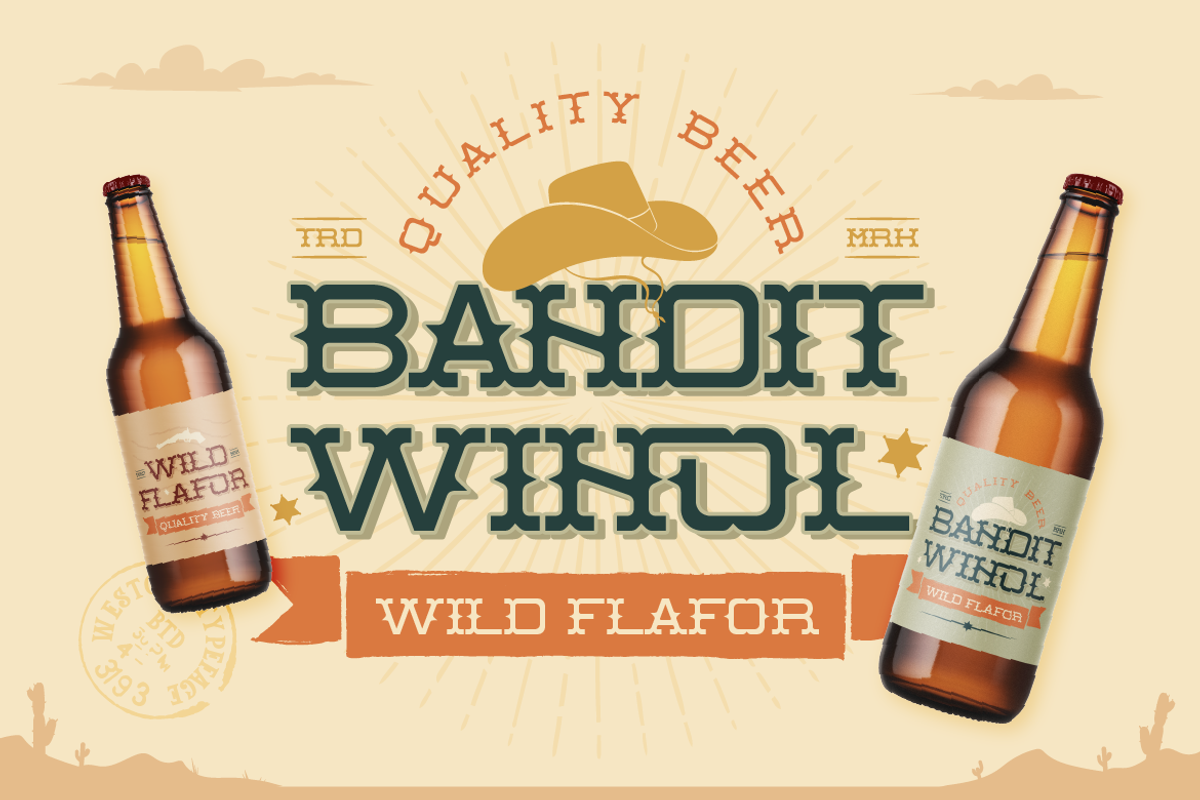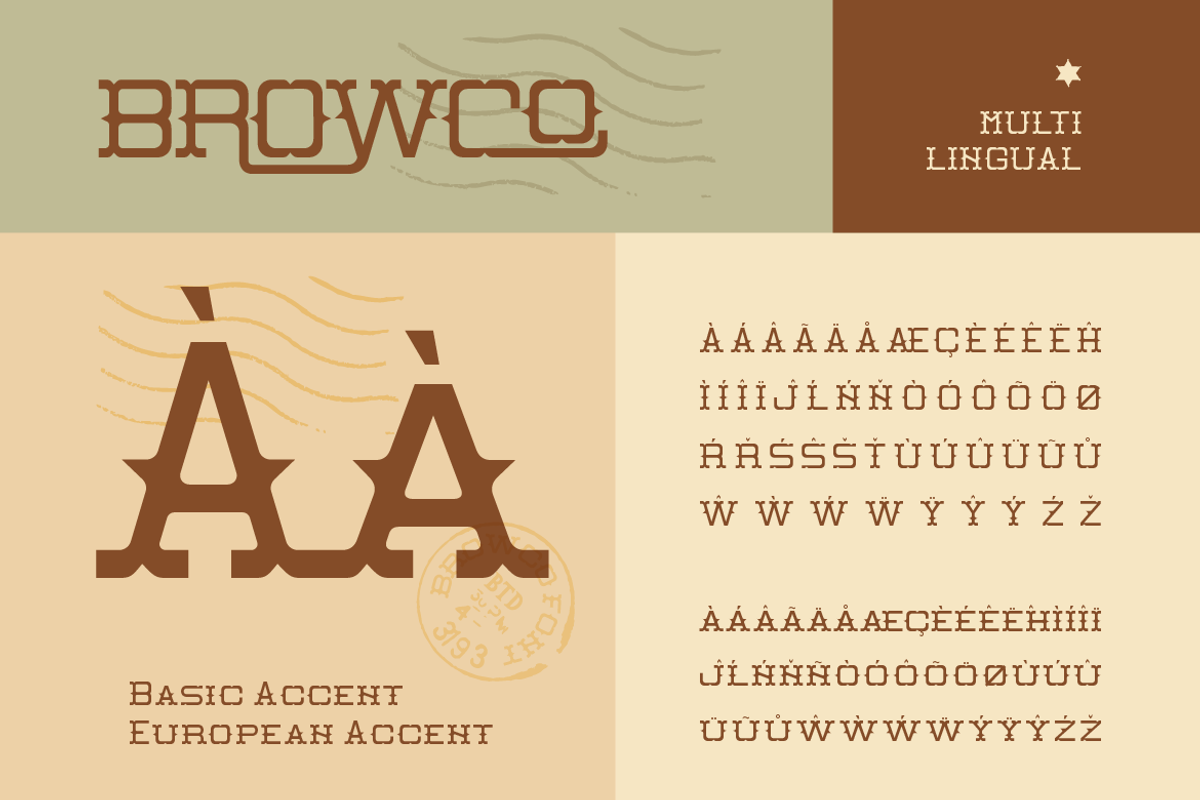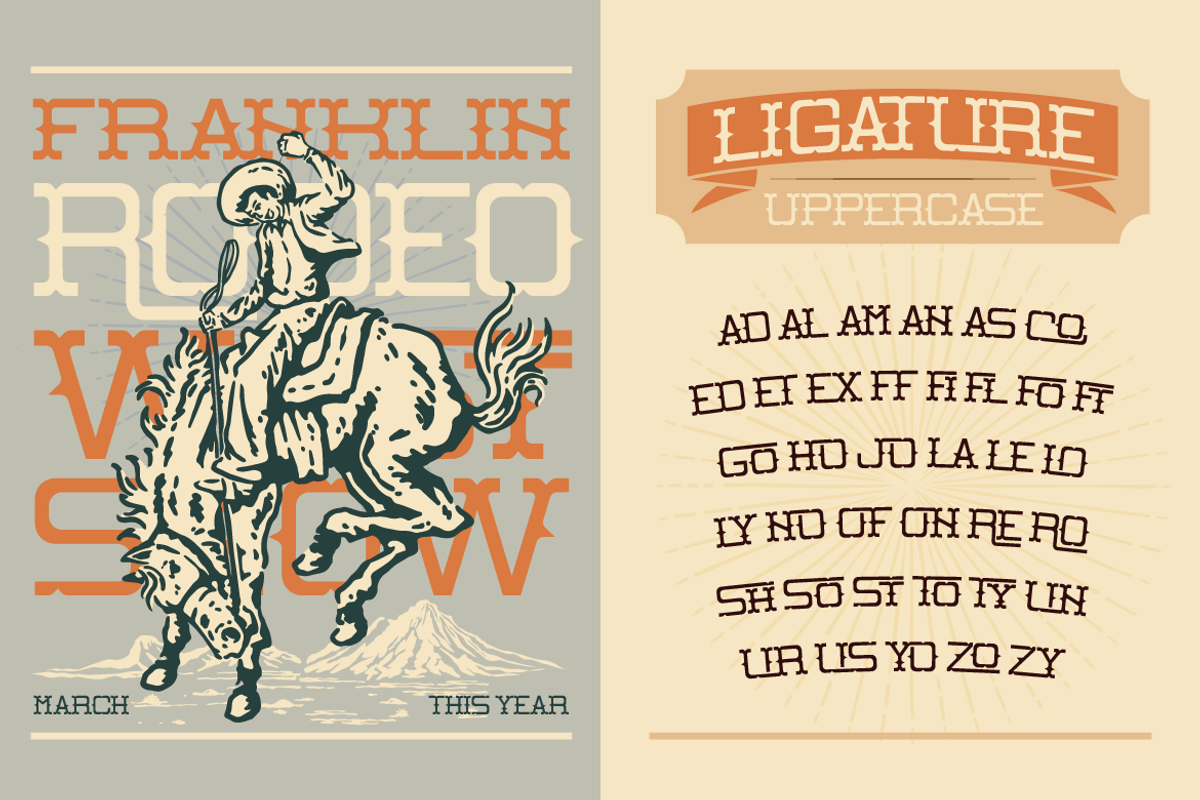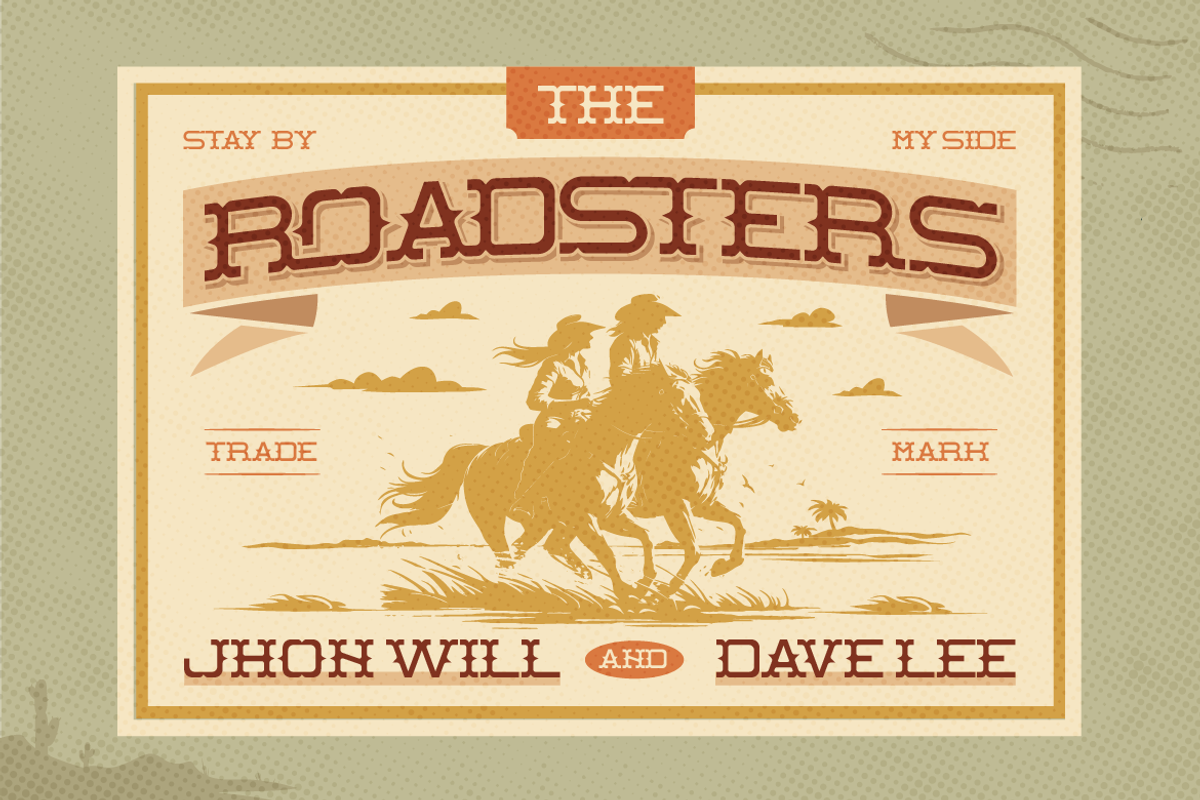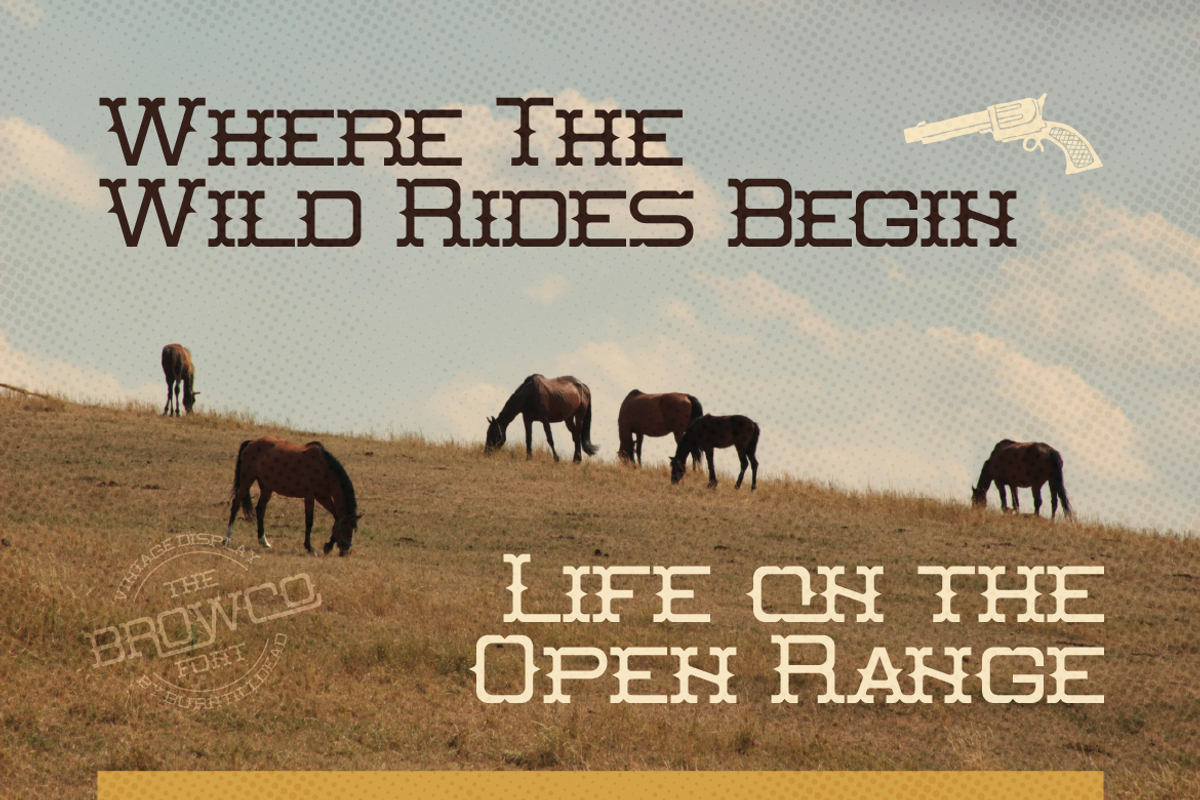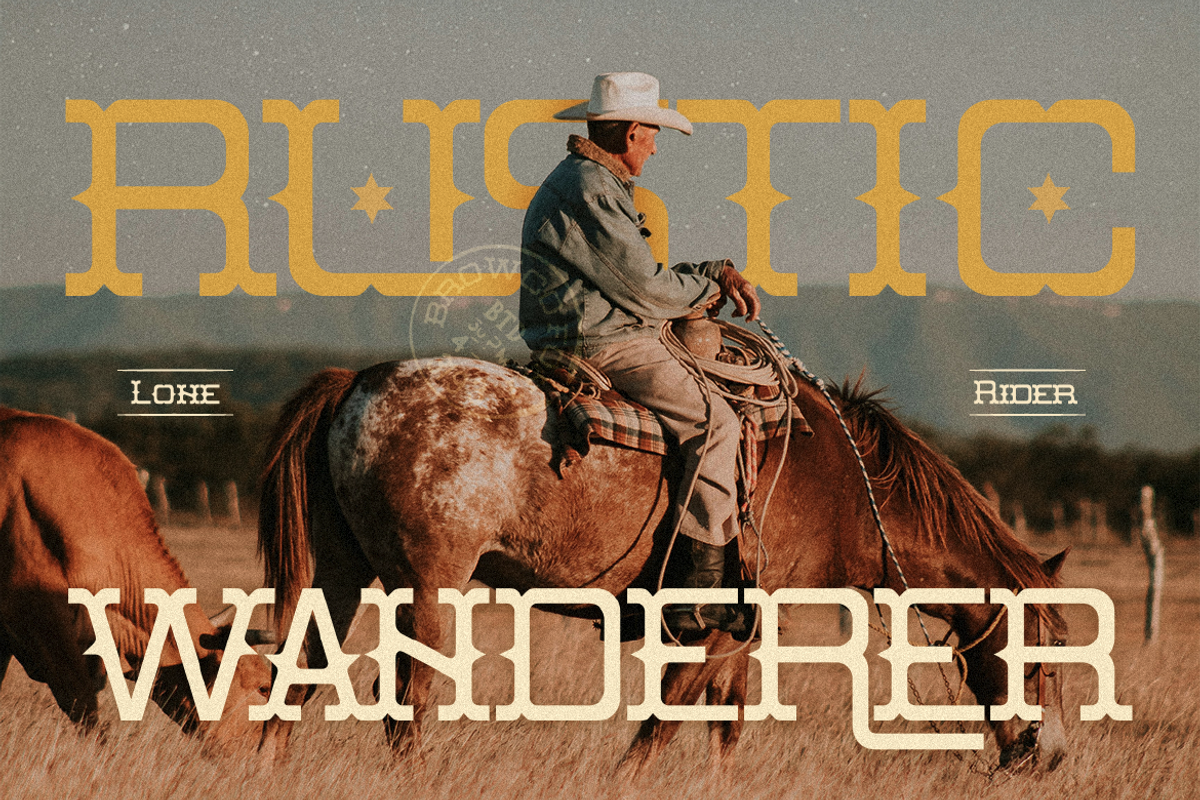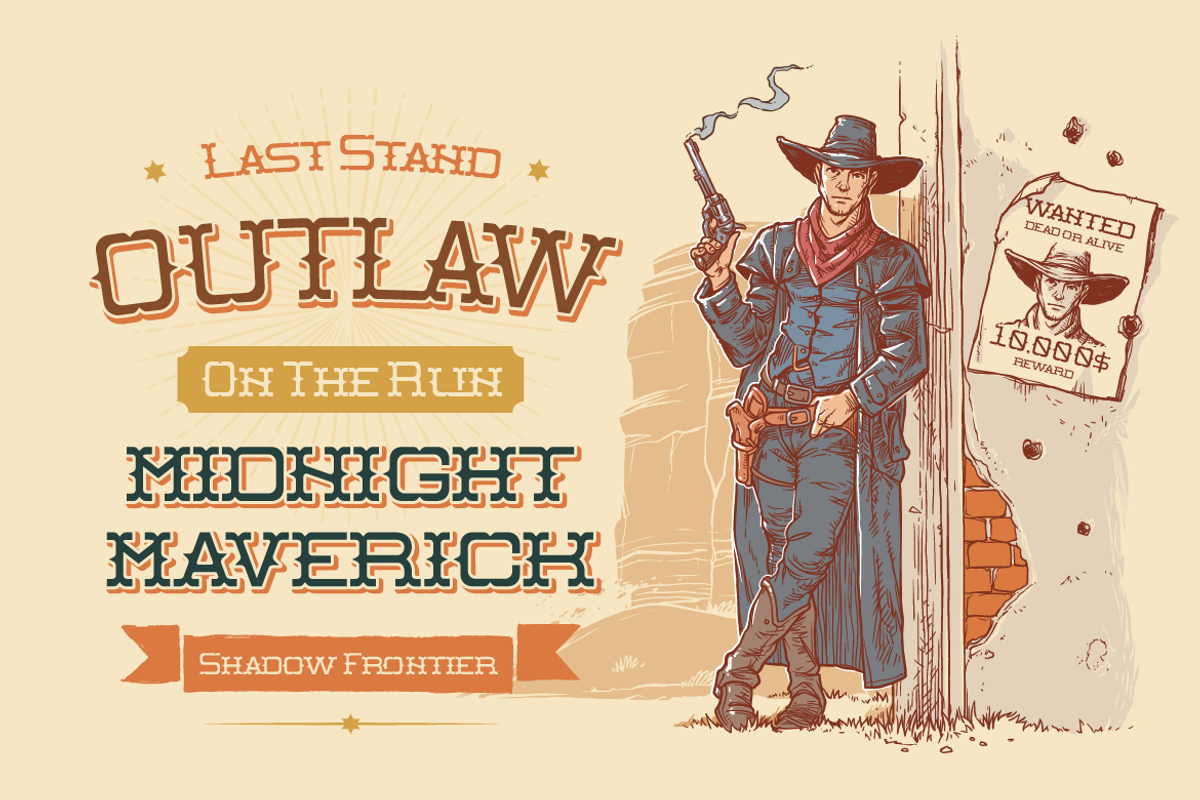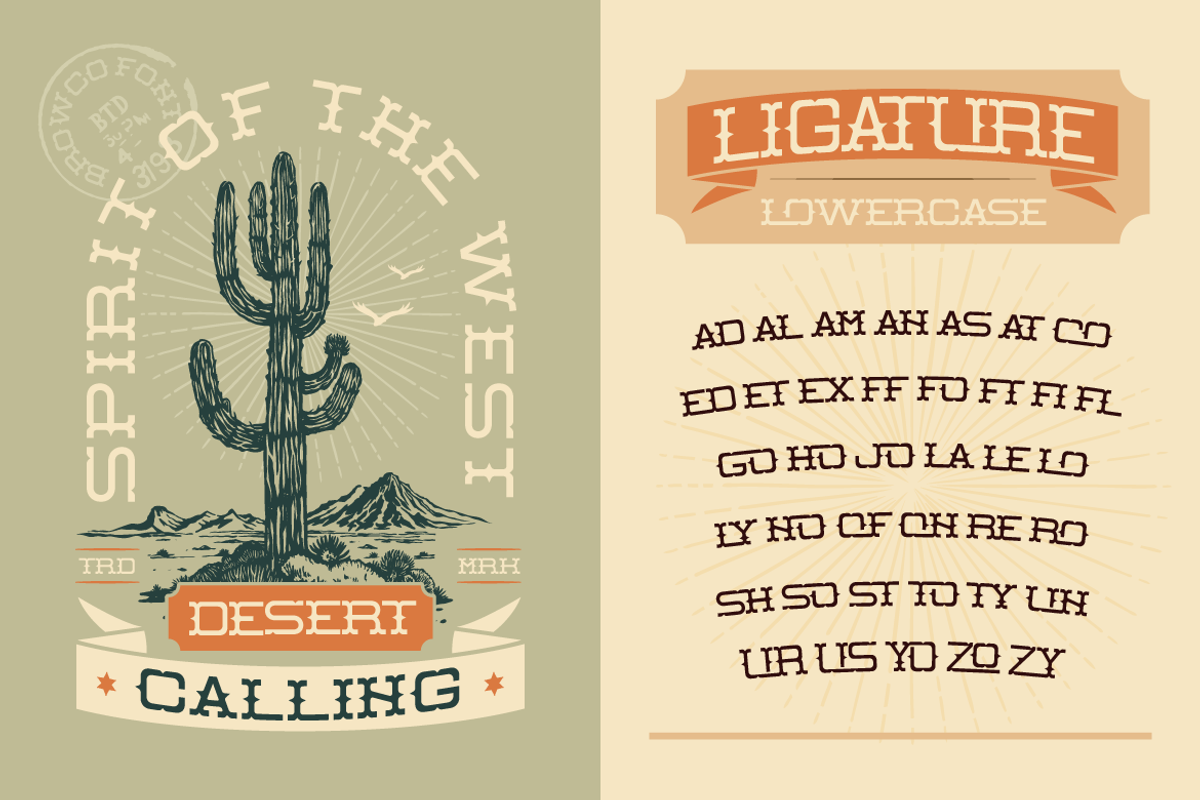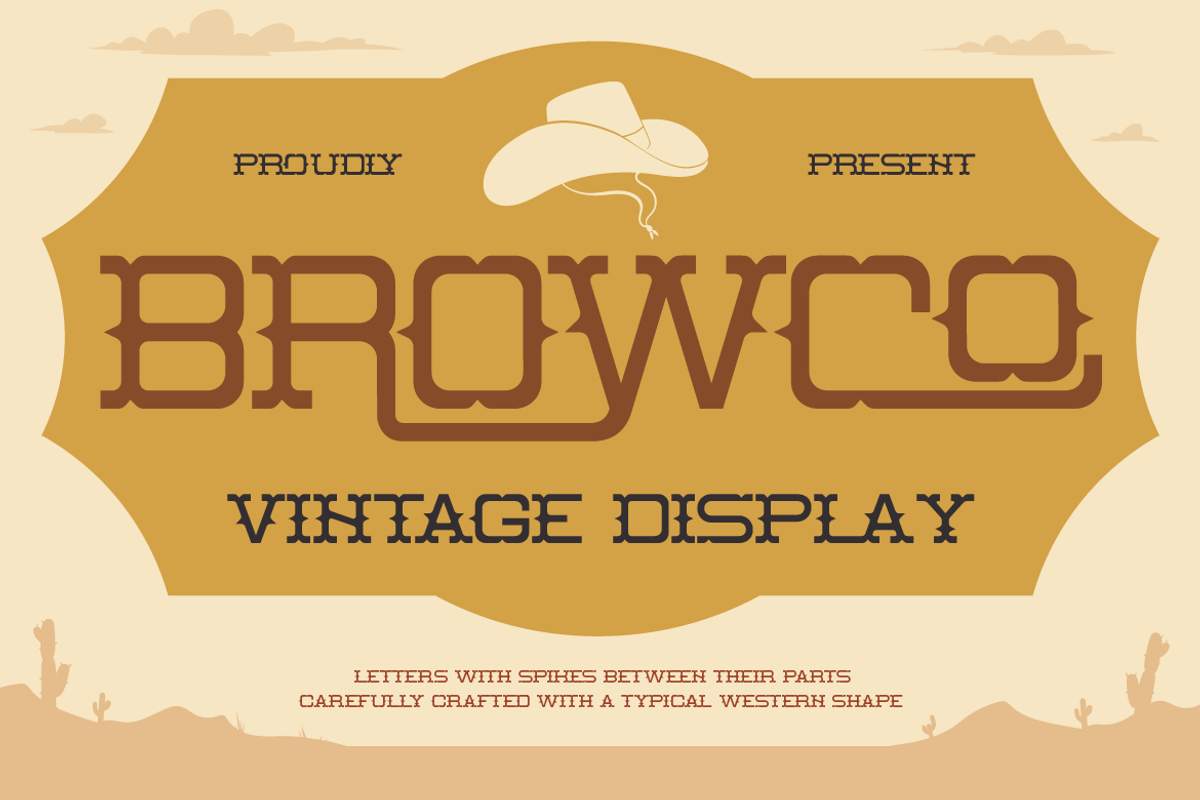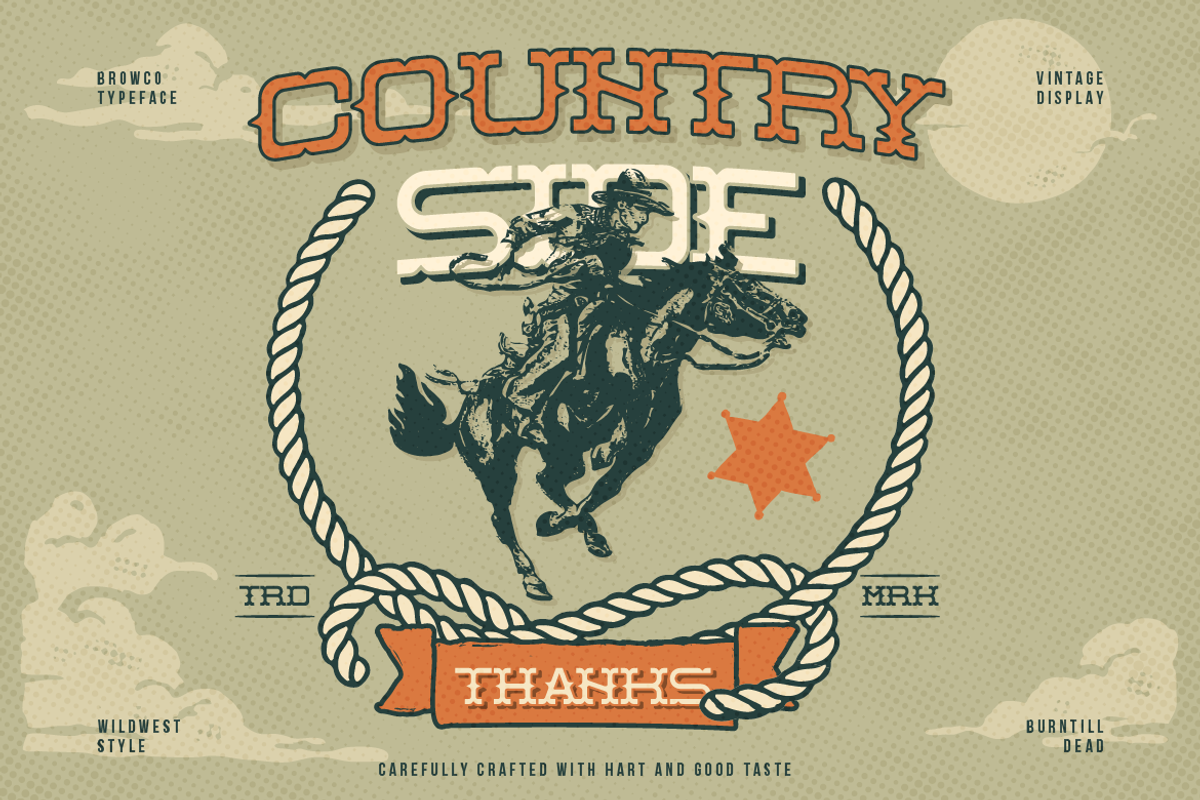
Browco
Proudly present, Browco, this font inspired by the letters with spike in American Wild West style. Browco characterized by the bold letters adorned with sharp spikes between their parts, giving it a distinctive, vintage look. Perfect for creating a nostalgic and adventurous atmosphere in your design, whether for branding, poster, logos, themed events and any project design that need touch of the Wild West style.
- A - Z set (Uppercase & Lowercase)